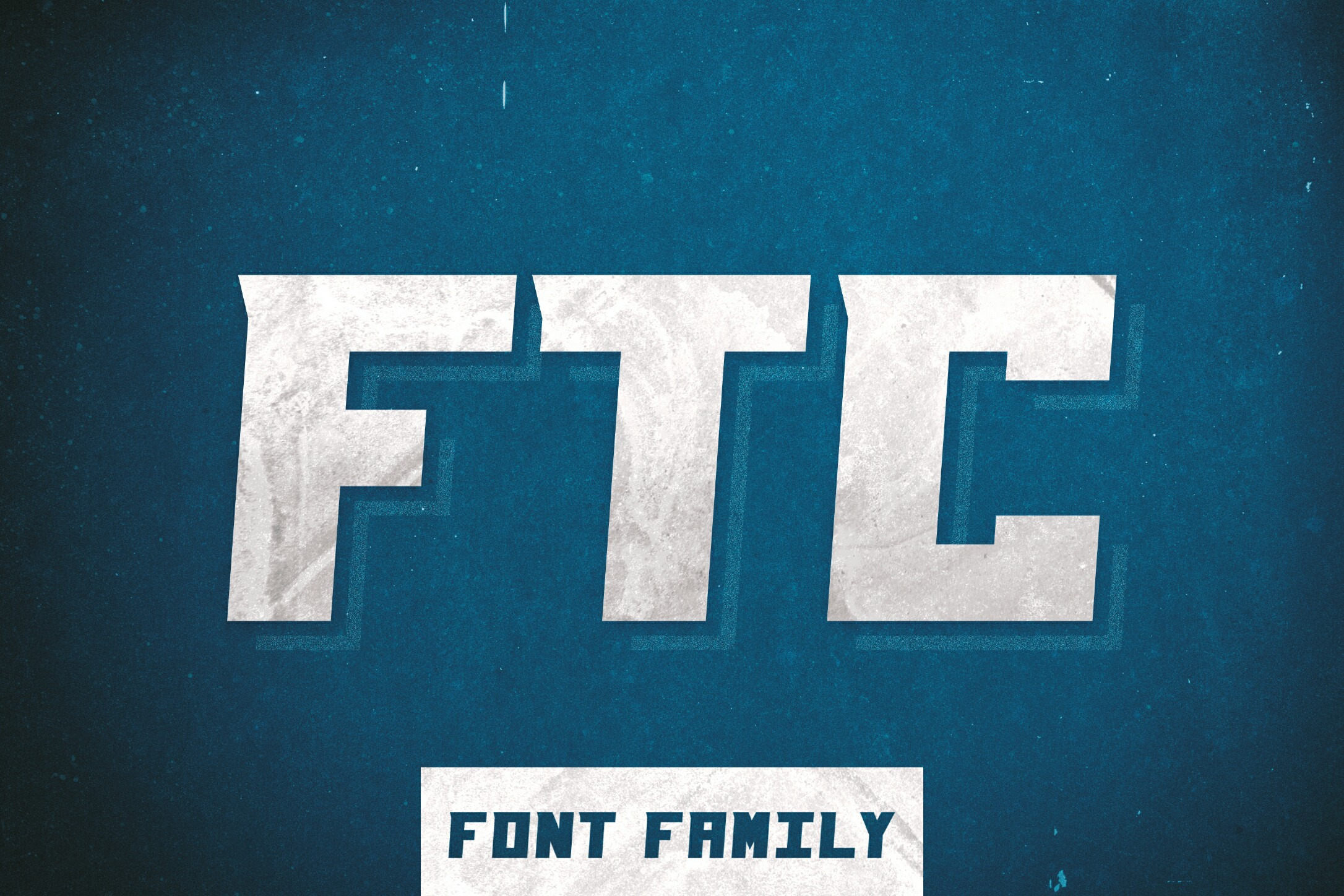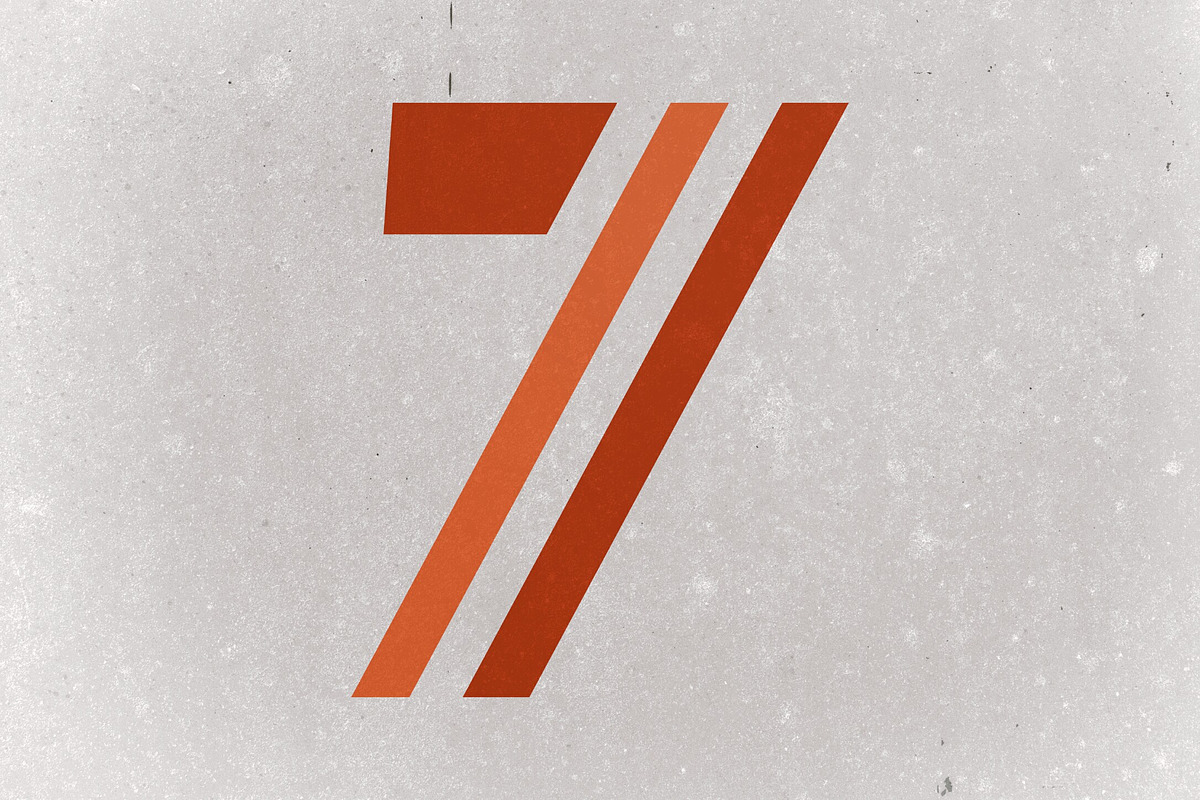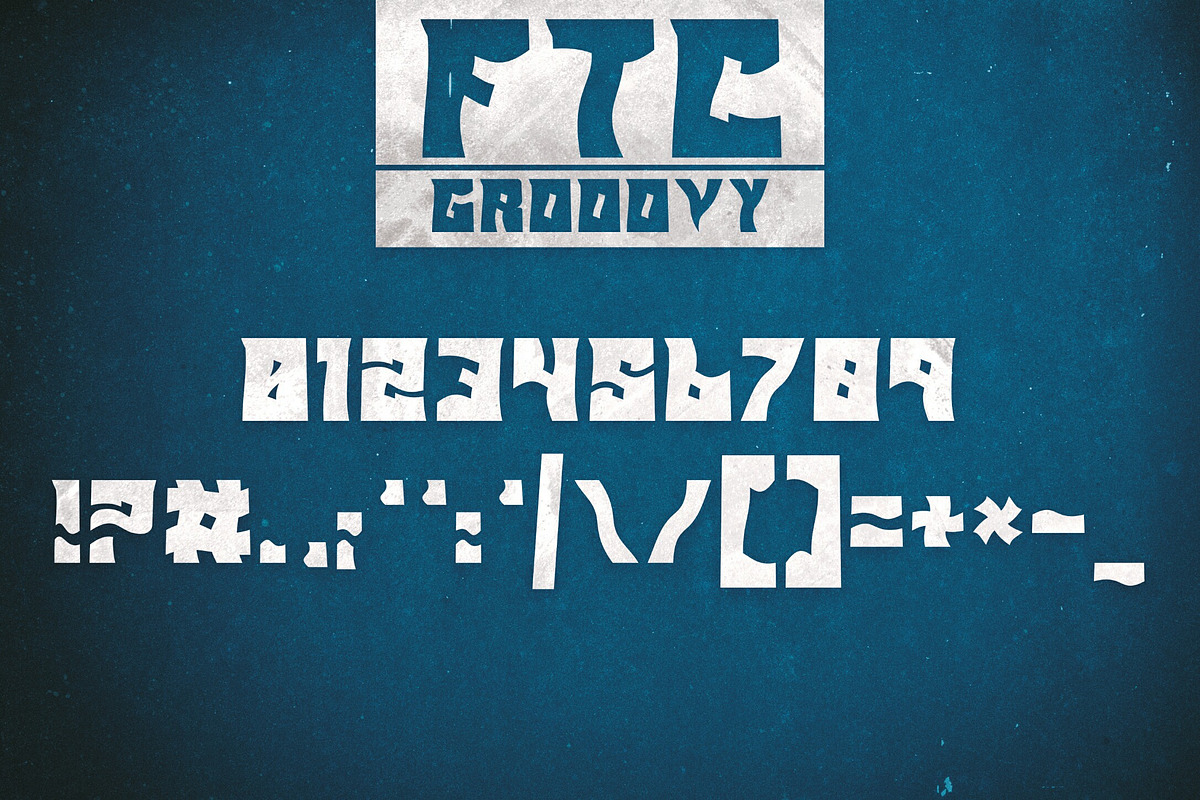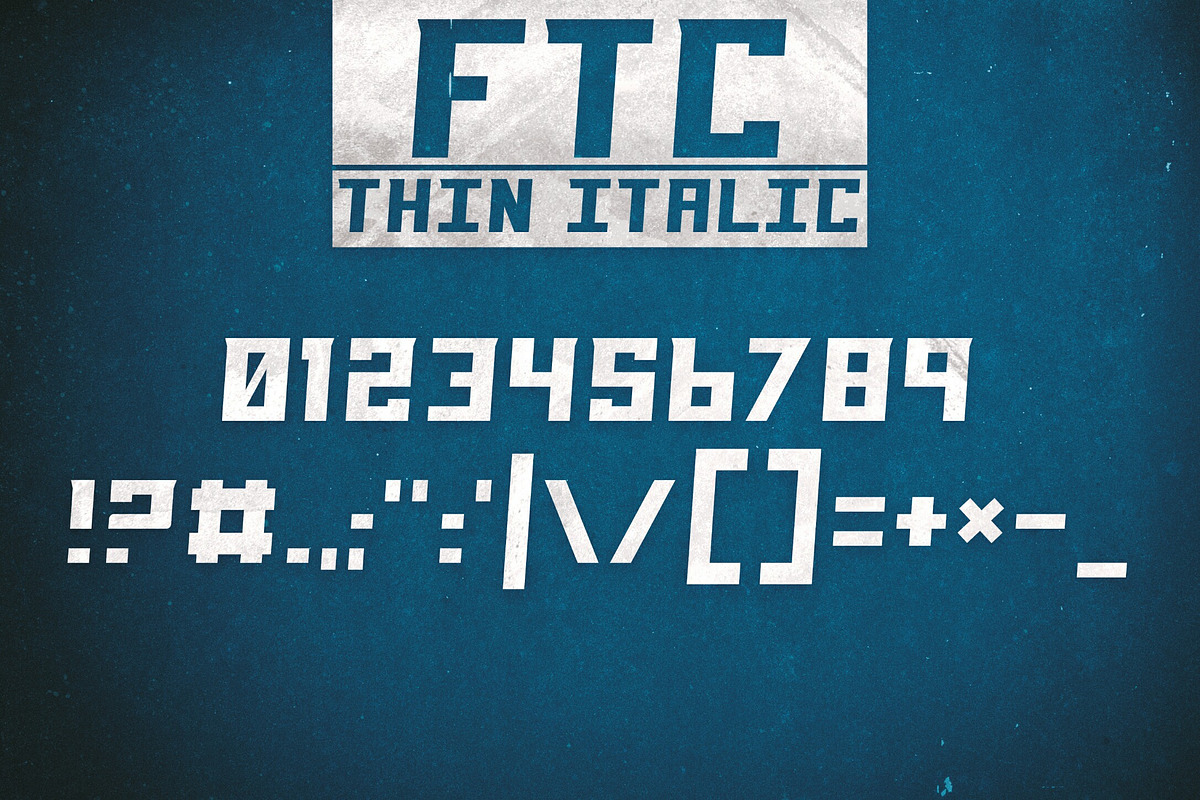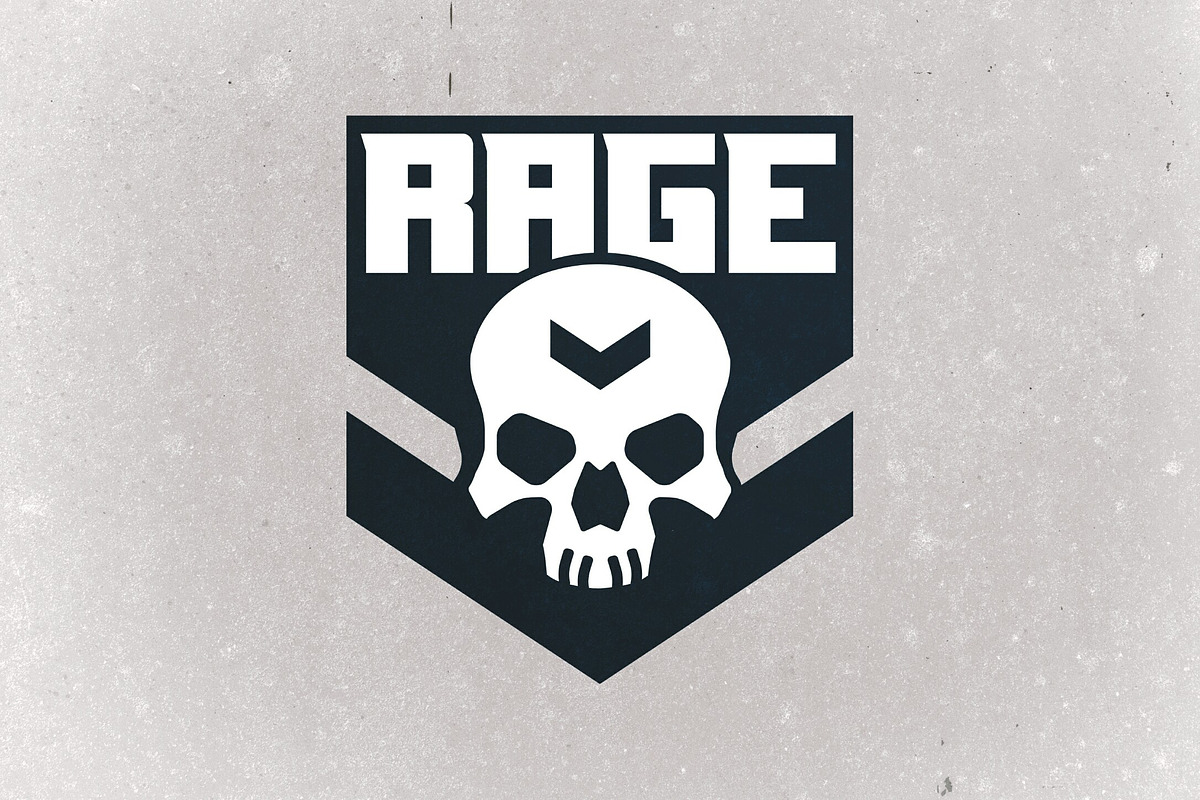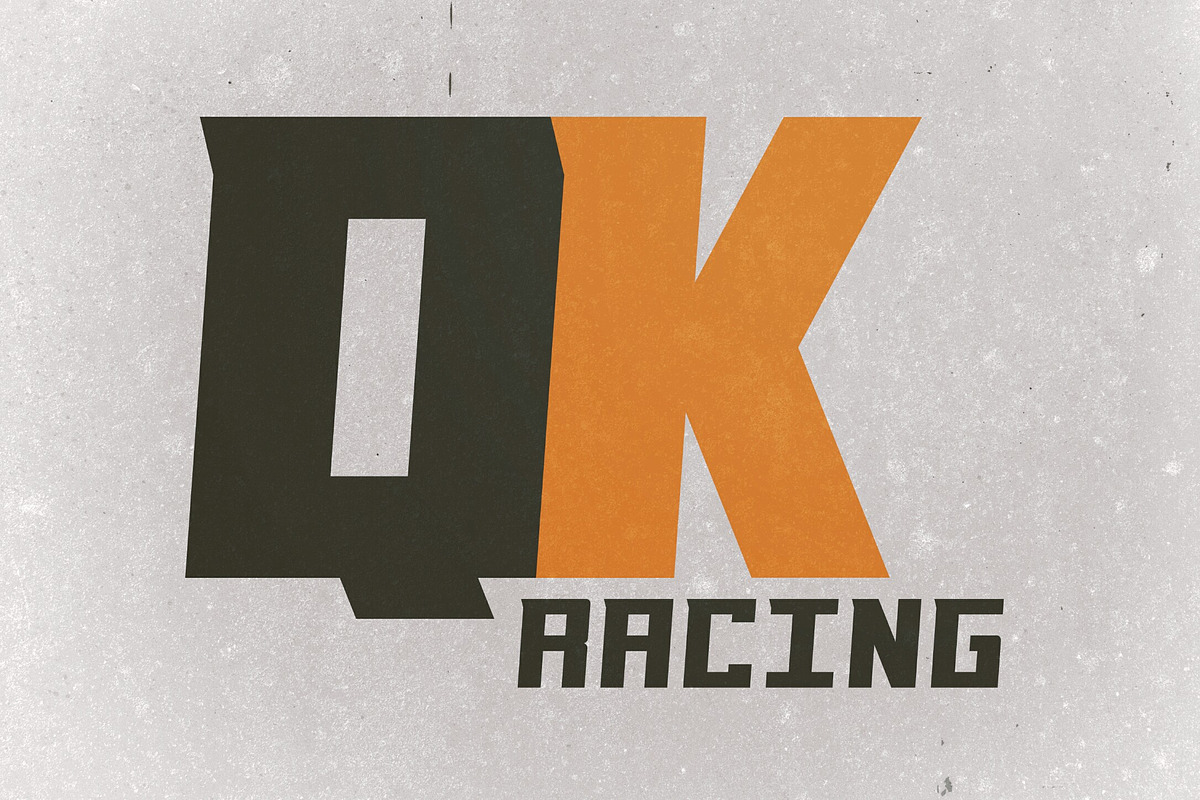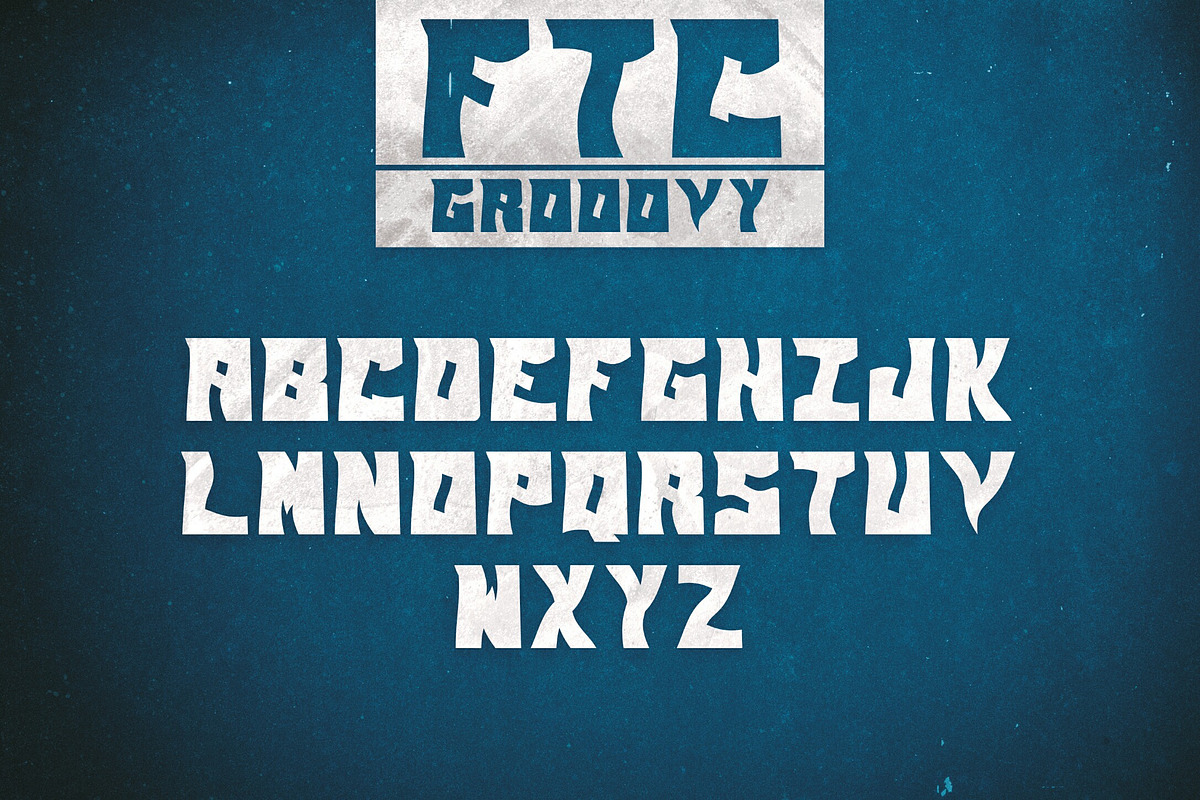
FTC Font Family
FTC is a bold and tough font driven from sport design. The font family comes in 5 different styles
- Italic
- Thin
- Thin Itallic
- And of course Grooovy